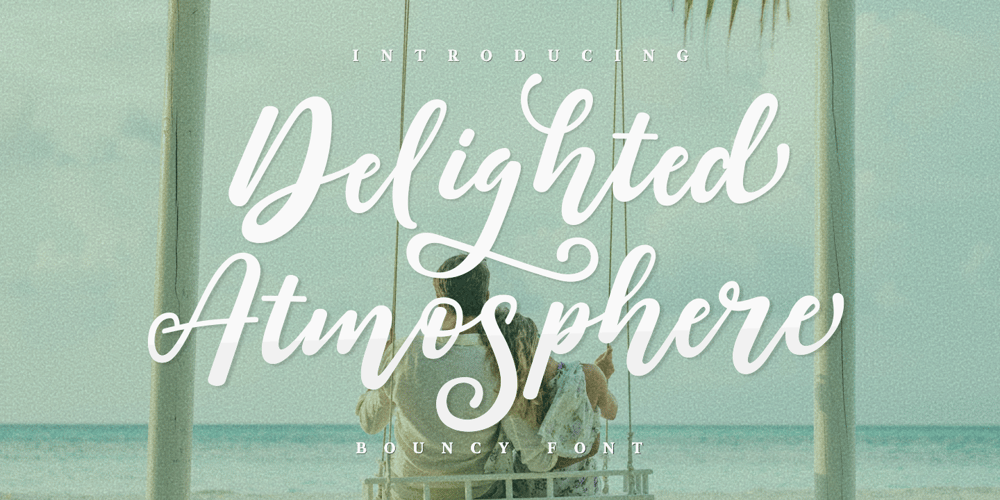
Delighted Atmosphere
Delighted Atmosphere font
Delighted Atmosphere Font Family was designed by Java Pep and published by Java Pep. Delighted Atmosphere contains 1 styles and family package options. Proudly present a pretty bouncy font called Delighted. As the name suggests, this font will make your project more enjoyable because it will make your project more beautiful and stand out. Delighted font comes with several alternates, so you can switch on for the alternate, stylistic alternate, and terminal form. This font is perfect for logo font, branding, greeting cards, cut files for quotes, silhouette font design, monogram font, etc.The packages and features Delighted font PUA encoded Multilingual support in more than 30 languages Thanks, and have a nice day